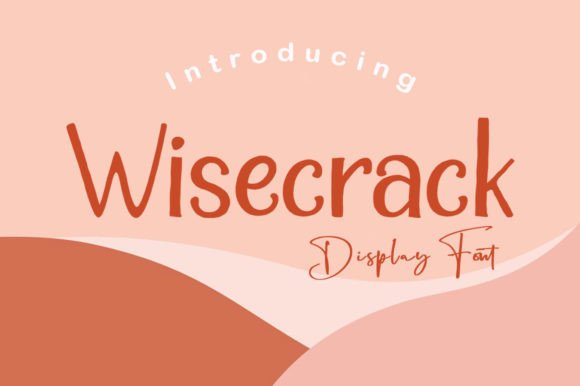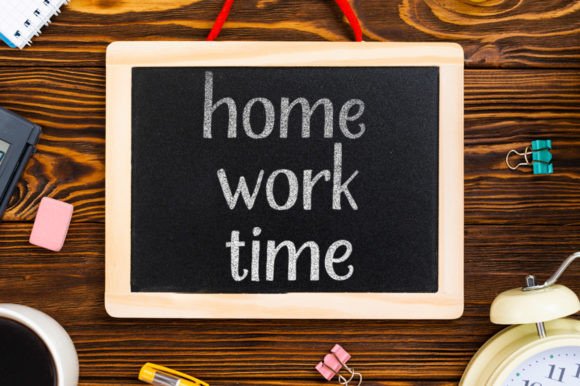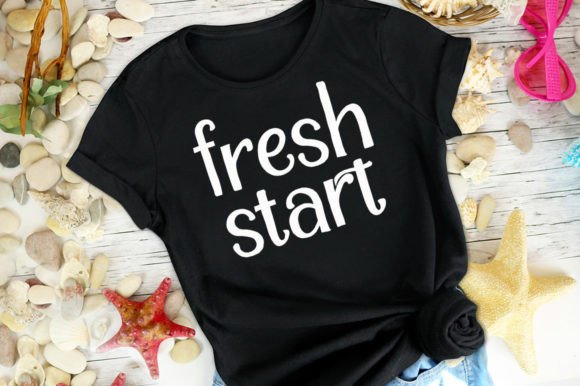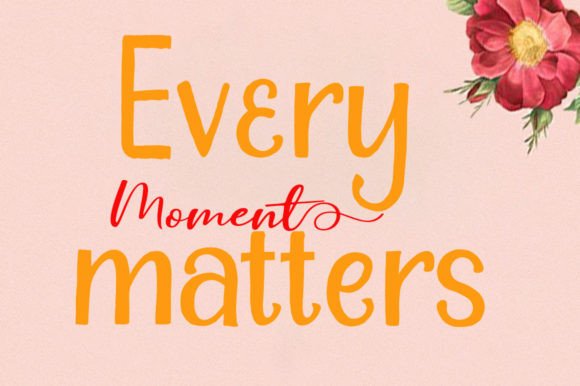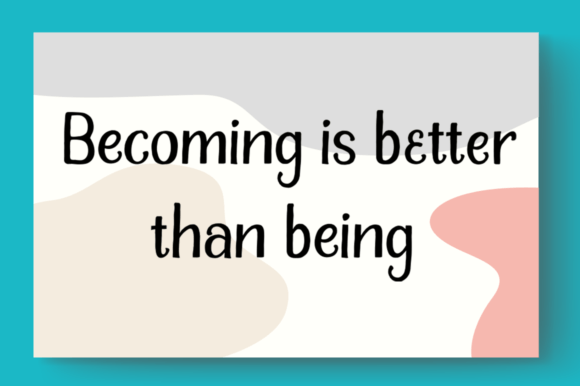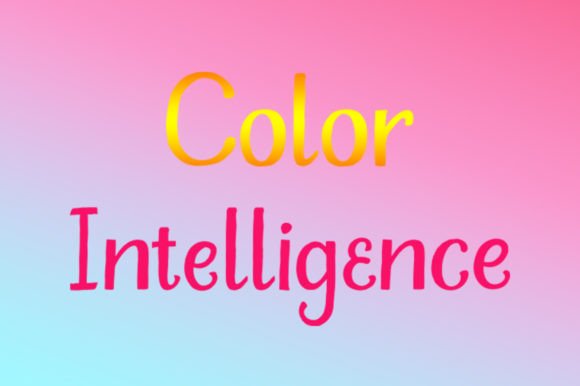
Wisecrack Font
About Wisecrack Font
This distinctive font primarily features uppercase letters, with a sprinkling of lowercase characters, adding an extra layer of character to your projects. Designed for versatility, this font is particularly well-suited for applications such as shirts, mugs, tumblers, stickers, and more.
The dominance of uppercase letters imparts a bold and attention-grabbing quality, making it ideal for creating impactful designs. The inclusion of select lowercase characters introduces a nuanced and eclectic touch, contributing to the font’s uniqueness.
Whether you’re crafting designs for apparel like shirts or personalizing items such as mugs and tumblers, this font brings a fresh and dynamic look. Its versatility extends to stickers, where it can enhance the visual appeal with its distinctive letterforms.
The deliberate mix of upper and lower case letters adds a playful and contemporary vibe, making this font a perfect choice for projects that demand a pop of character. It allows your designs to stand out, leaving a lasting impression on viewers.
In summary, this unique font, characterized by its predominantly uppercase letters with a smattering of lowercase elements, is a go-to choice for those looking to infuse character and individuality into their projects. Whether applied to shirts, mugs, tumblers, stickers, or other creative endeavors, this font promises to bring a distinctive and eye-catching quality to your designs.